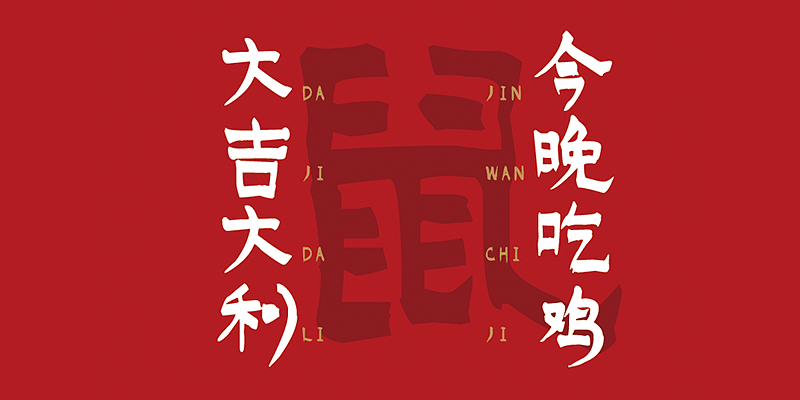
HelloFont ID Shou Xie Qi Shu Font is a captivating and unique typeface that perfectly blends the art of traditional Chinese calligraphy with a modern, artistic flair. Its brush-like strokes and dynamic character forms give it an authentic, hand-drawn feel, making it an excellent choice for a variety of design projects. This font is especially effective for creating a sense of history, elegance, and cultural richness. It is perfect for branding for art studios, restaurants, or tea houses, as well as for creating distinctive posters, book covers, and product packaging that stand out with a touch of Eastern aesthetic. The HelloFont ID Shou Xie Qi Shu Font Free Download allows you to test this beautiful and expressive font for your personal creative projects.
What makes HelloFont ID Shou Xie Qi Shu Font so exciting is its remarkable ability to convey a sense of genuine craftsmanship and artistic flow. Each character seems to be a work of art in itself, with subtle variations in stroke width and texture that add to its authentic, handwritten look. This unique quality makes it far more engaging than a standard font, giving your designs a memorable and personal touch. It is a powerful tool for visual storytelling, helping to evoke emotions and a sense of tradition without sacrificing modern appeal. Its unique style ensures that any design using it will have a strong and unforgettable identity.
The HelloFont ID Shou Xie Qi Shu Font family is designed to offer a cohesive and versatile toolkit for your creative needs. It includes a variety of styles that maintain the same artistic integrity, such as HelloFont ID Shou Xie Qi Shu Light, HelloFont ID Shou Xie Qi Shu Regular, and HelloFont ID Shou Xie Qi Shu Bold. This range allows you to create a sophisticated typographic hierarchy, using different weights to add depth and emphasis to your designs. The consistent aesthetic across the family ensures that every element of your layout, from main titles to small details, is unified and professional.
This font is more than just a set of characters; it's a design asset that can help you define your brand's personality and communicate your vision effectively. Its artistic and elegant nature makes it a valuable addition to any designer's toolkit.